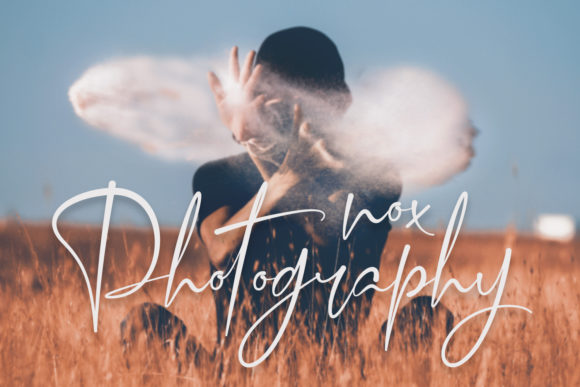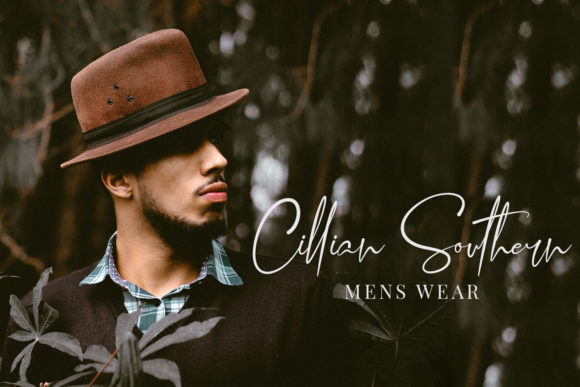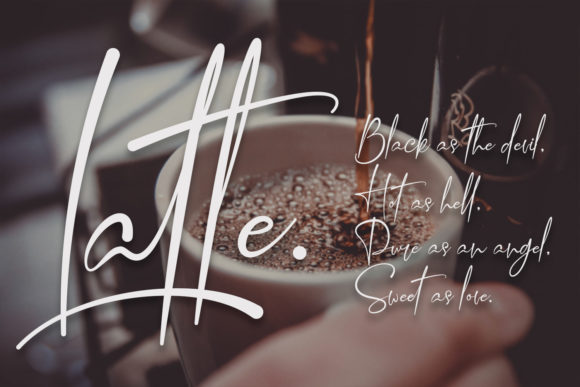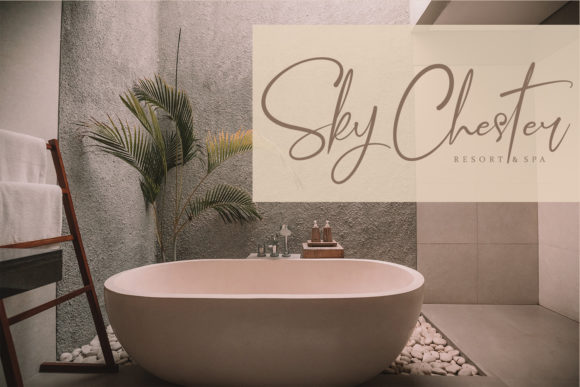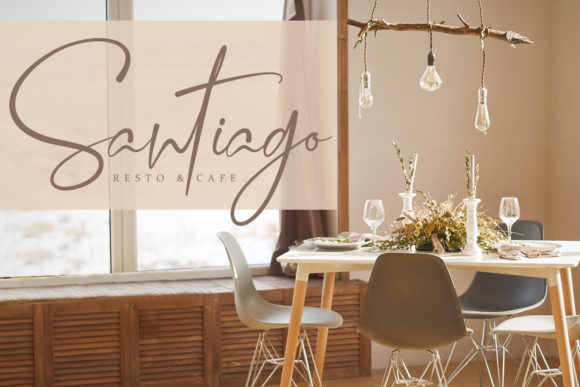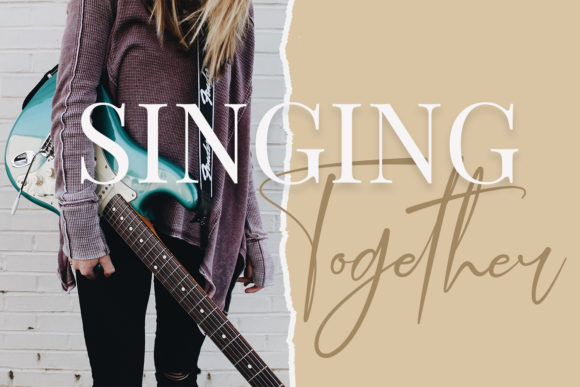
The Ultimate Font for Creative Projects: A Deep Dive into Confidently
Have you ever been in the middle of a design project, and suddenly, you just can’t seem to find the right font? I recall a particularly frustrating experience while working on a wedding invitation design. My client wanted a luxurious and modern feel, but every font I tried seemed to fall flat. That’s when I stumbled upon Confidently, a stunning script font that instantly elevated my design to the next level.
A First Impression: What Makes Confidently Special
Confidently is a luxurious script font that exudes class and sophistication. Its modern style makes it perfect for a wide range of design projects, including branding, headings, wedding designs, invitations, signatures, logos, labels, and more! With its elegant lines and beautiful curves, Confidently is sure to make your designs stand out.
What I Love About Confidently
- ✨ Luxurious and modern script style that’s perfect for high-end designs
- ✅ Classy and sophisticated feel that’s sure to impress
- 🌟 Highly versatile and can be used for a wide range of design projects
- 🎨 Beautifully crafted with attention to detail and a focus on aesthetics
While Confidently is an amazing font, there are a few things to keep in mind. For example, ⚠️ some of the more intricate details may not render well at smaller font sizes. Additionally, 🤔 you may need to experiment with different styling options to get the perfect look for your design.
One of the standout features of Confidently is its support for OpenType features and glyphs. These features allow you to customize the font to suit your design needs, adding an extra layer of creativity and flexibility. Some of the OpenType features you can expect to find in Confidently include:
- Stylistic alternates: These allow you to switch between different font styles, such as italic or bold.
- Ligatures: These combine multiple characters into a single glyph, creating a more fluid and natural look.
- Swashes: These add decorative flourishes to your text, adding a touch of elegance and sophistication.
The Designer Inspiration Behind Confidently
Confidently was designed with the goal of creating a luxurious and modern script font that would elevate design projects to the highest level. The designer behind Confidently drew inspiration from classic script fonts, combined with a modern twist to create a truly unique and versatile font.
Q: Is Confidently a difficult font to read?
A: Confidently is a script font, and as such, it may be more challenging to read at smaller font sizes. However, at larger font sizes, Confidently is clear and easy to read.